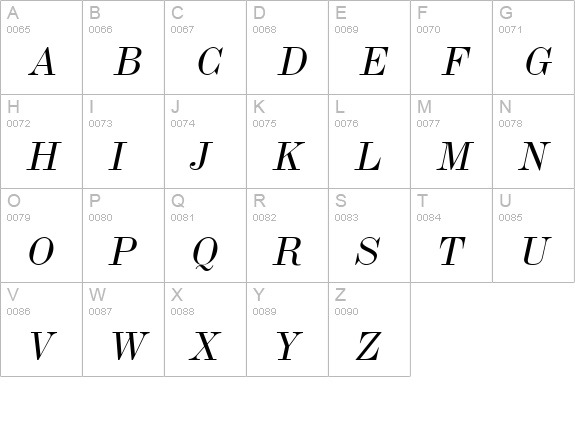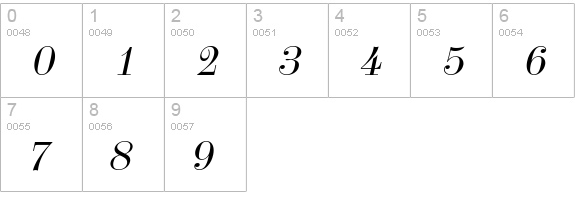
Indy 17 Wide Italic Font Details
Indy 17 Wide Italic is a distinctive, extended-width, italic variant in the Indy typeface family \xE2\x80\x94 well suited to design and typography projects.
The Indy 17 Wide Italic font is a modern and stylish typeface that effortlessly blends elegance and versatility. Its sleek and elongated letterforms exude sophistication, making it the perfect choice for a wide range of design projects. This font's italicized variant adds a touch of dynamism and flair to any text, making it ideal for conveying a sense of motion and energy. Whether you're designing a logo, creating a headline, or crafting a poster, the Indy 17 Wide Italic font is sure to make a lasting impression. One of the most appealing aspects of this font is that it is freely available to download at FontsMarket.com. This means that you can effortlessly enhance your design projects without having to worry about any additional costs. The font's high-quality and refined aesthetics ensure that your designs will stand out from the crowd, while its wide range of characters and symbols provide you with endless creative possibilities. The Indy 17 Wide Italic font is crafted with meticulous attention to detail, resulting in a typeface that is not only visually appealing but also highly legible. Its well-defined and evenly spaced letterforms ensure that your text will be easily readable, even at smaller sizes. Whether you're a professional designer or a hobbyist, the Indy 17 Wide Italic font is a valuable asset to add to your font library. Its versatility, elegance, and freely available download make it a must-have for anyone looking to elevate their design projects to new heights. So why wait? Head over to FontsMarket.com and download the Indy 17 Wide Italic font today to bring a touch of sophistication and creativity to your designs.